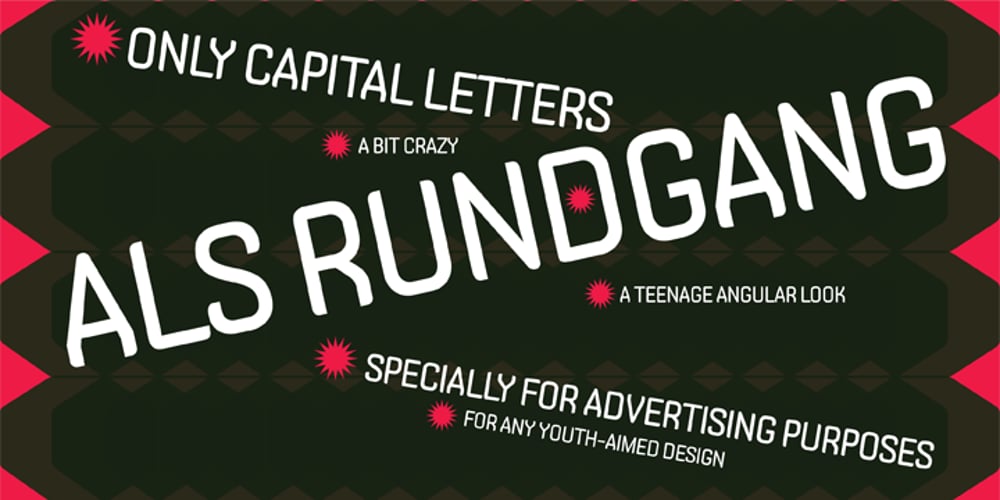
ALS Rundgang
ALS Rundgang font
ALS Rundgang Font Family was designed by Dominik Heilig and published by Art. Lebedev Studio. ALS Rundgang contains 1 styles and family package options. ALS Rundgang is a decorative font designed specially for advertising purposes that reminds one of electronic display boards and bitmap typefaces. It includes only capital letters. Some of the letterforms are deliberately misshaped to have a teenage angular look‚it’s a bit crazy and out of proportion. Rundgang is well-suited for any youth-aimed design, such as various event and campaign materials, periodicals, flyers, leaflets, posters and other youngish marketing stuff.